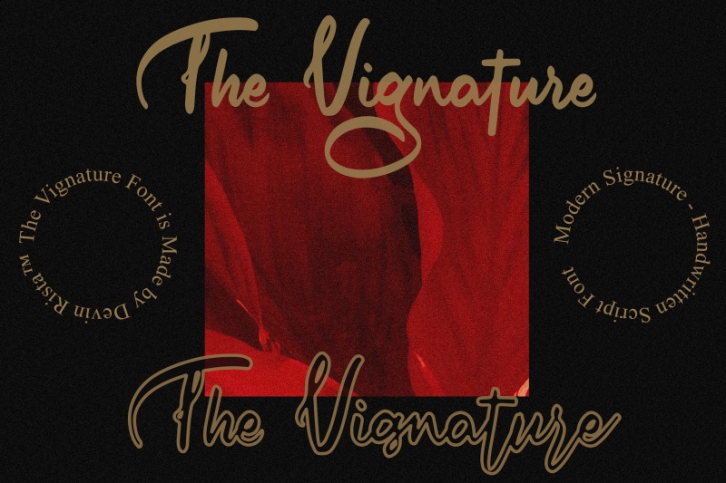
The Vignature Handstylish Font Download
The Vignature is a signature modern script font. It is including the uppercase and lowercase with alternates letter, numeral and punctuation. You will have OTF, TTF, and WOFF version.
It has feminine touch style that is perfect for branding, signature logo, wedding invites and cards, and any other creative design.